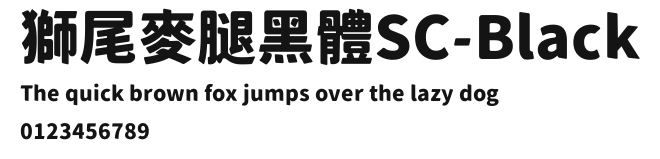
獅尾麥腿黑體SC-Black Preview
• Font Name: 獅尾麥腿黑體SC-Black
• Font Style: Black
• Full Font Name: 獅尾麥腿黑體SC-Black
About 獅尾麥腿黑體SC-Black.ttf
獅尾麥腿黑體SC-Black.ttf is a modern, elegant sans-serif font designed for ultimate readability and visual harmony. Perfect for branding, headlines, web design, and print materials.